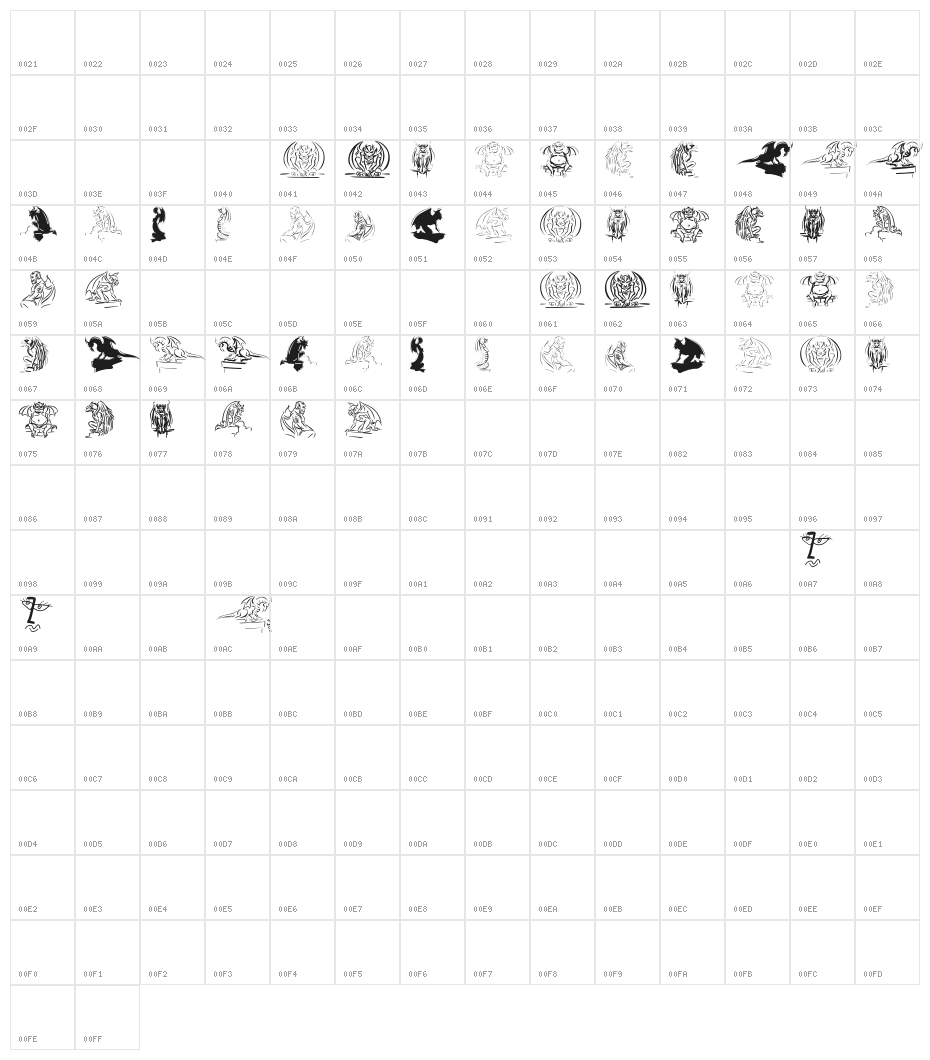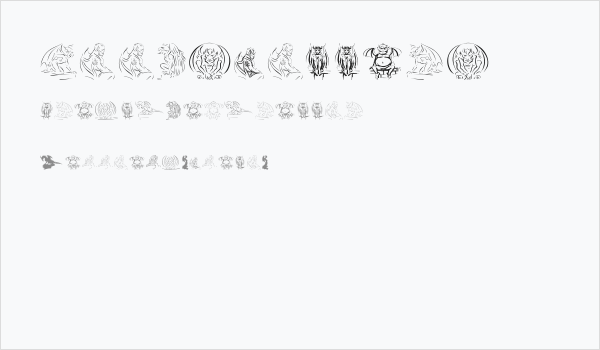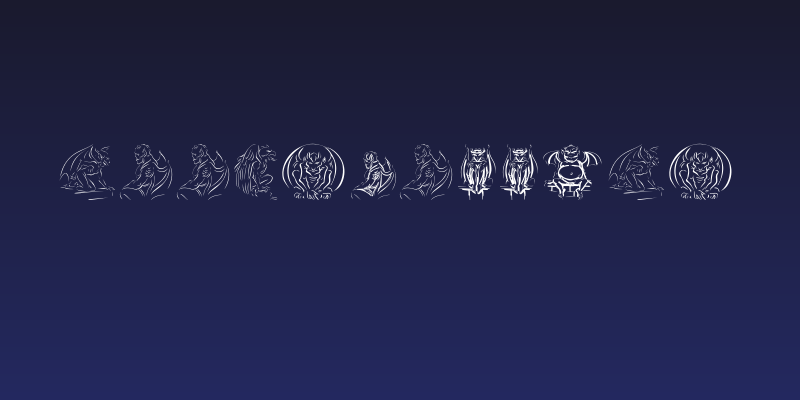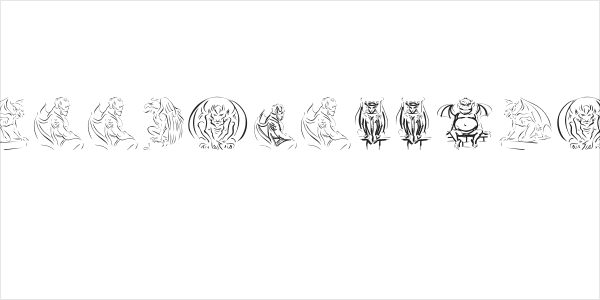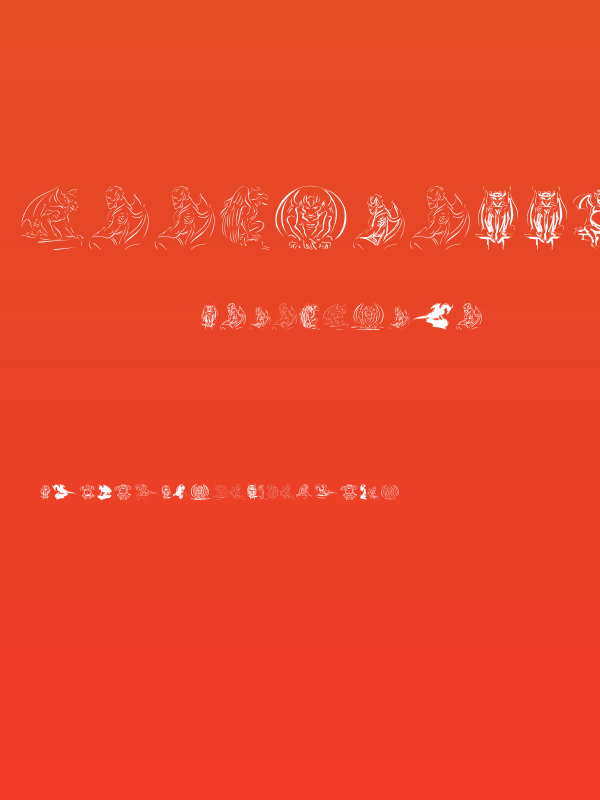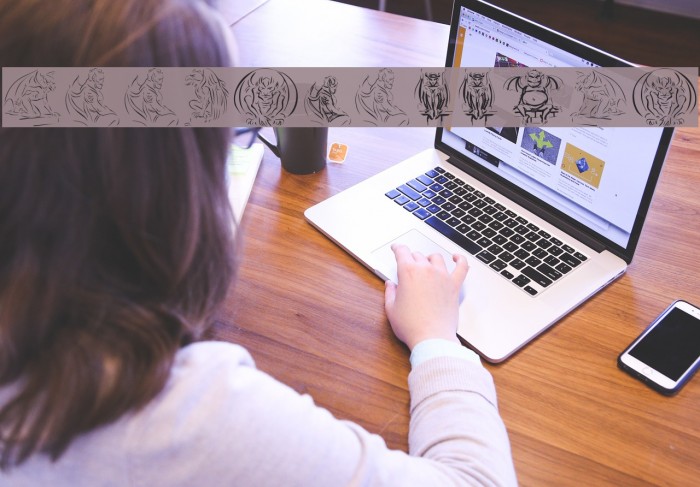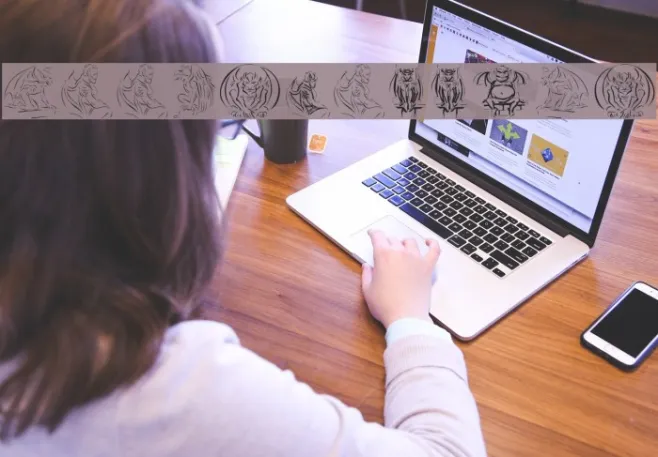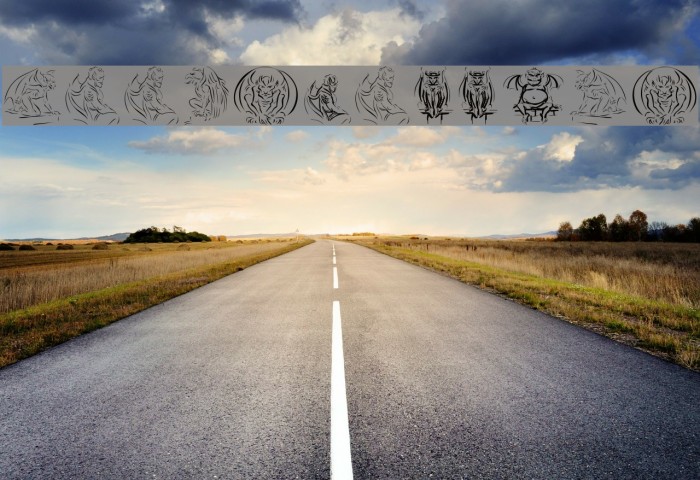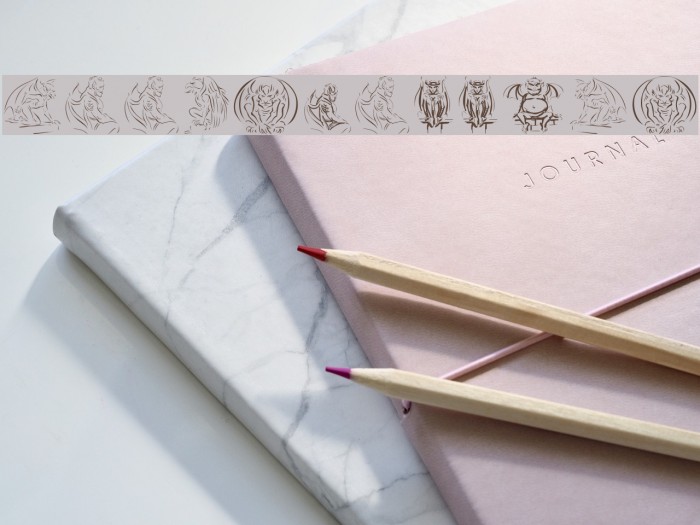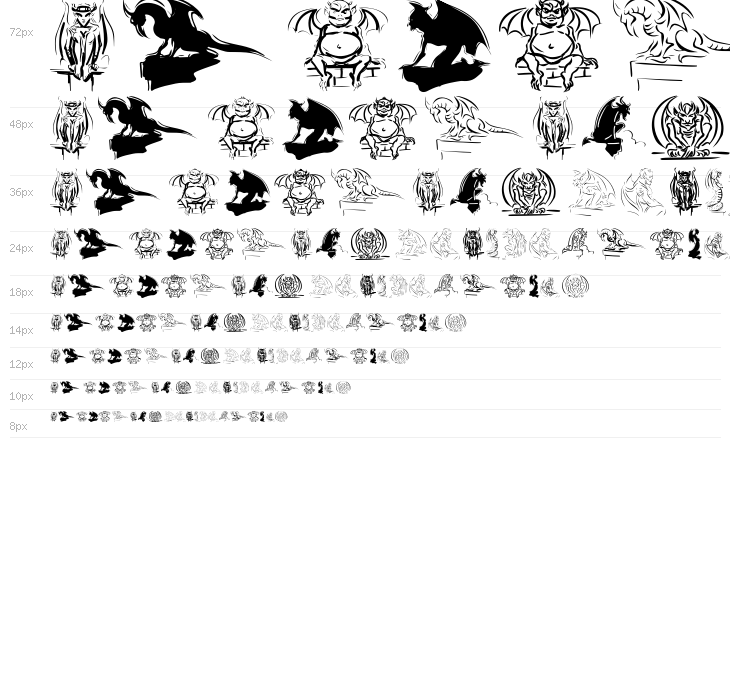
RoofSpotters Font
RoofSpotters Description
A highly decorative and illustrative font featuring detailed gargoyle and mythical creature designs for each character, with intricate line work and varying levels of shading, giving a hand-drawn, fantasy-inspired appearance.
| Overall Style | Decorative, Fantasy, Gothic |
| Use Case | Logos, Headlines, Posters, Themed Graphics |
| Proposed Projects | Book covers, fantasy game titles, Halloween event posters, themed invitations, decorative headings. |